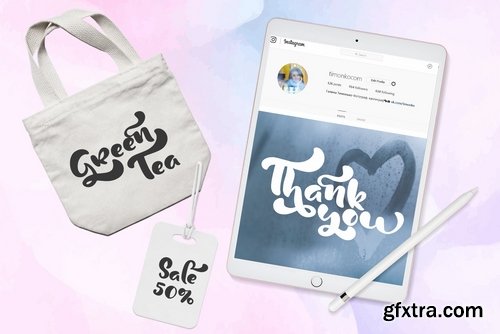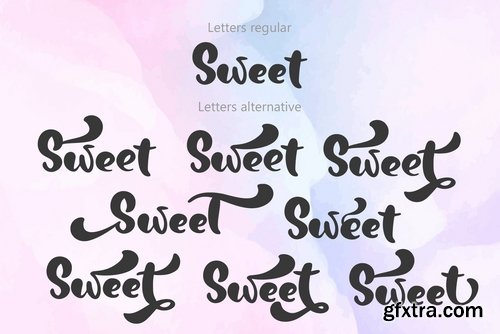
Unique handmade calligraphic Sweet Dreams Script Font is modern display font with 81 alternative flourish lowercases, 51 alternative uppercases and 27 ligatures. Each time when you`ll type the text with Sweet Dreams Font, you will want to return to it again and again, because it sweet dreams for designers, blogers and everybody who loves handwritting calligraphy. For fans of puzzles and flowery flourish whorls, there will be plenty of opportunity to experiment on different versions of each letter. Help to you realize your dreams and design ;)